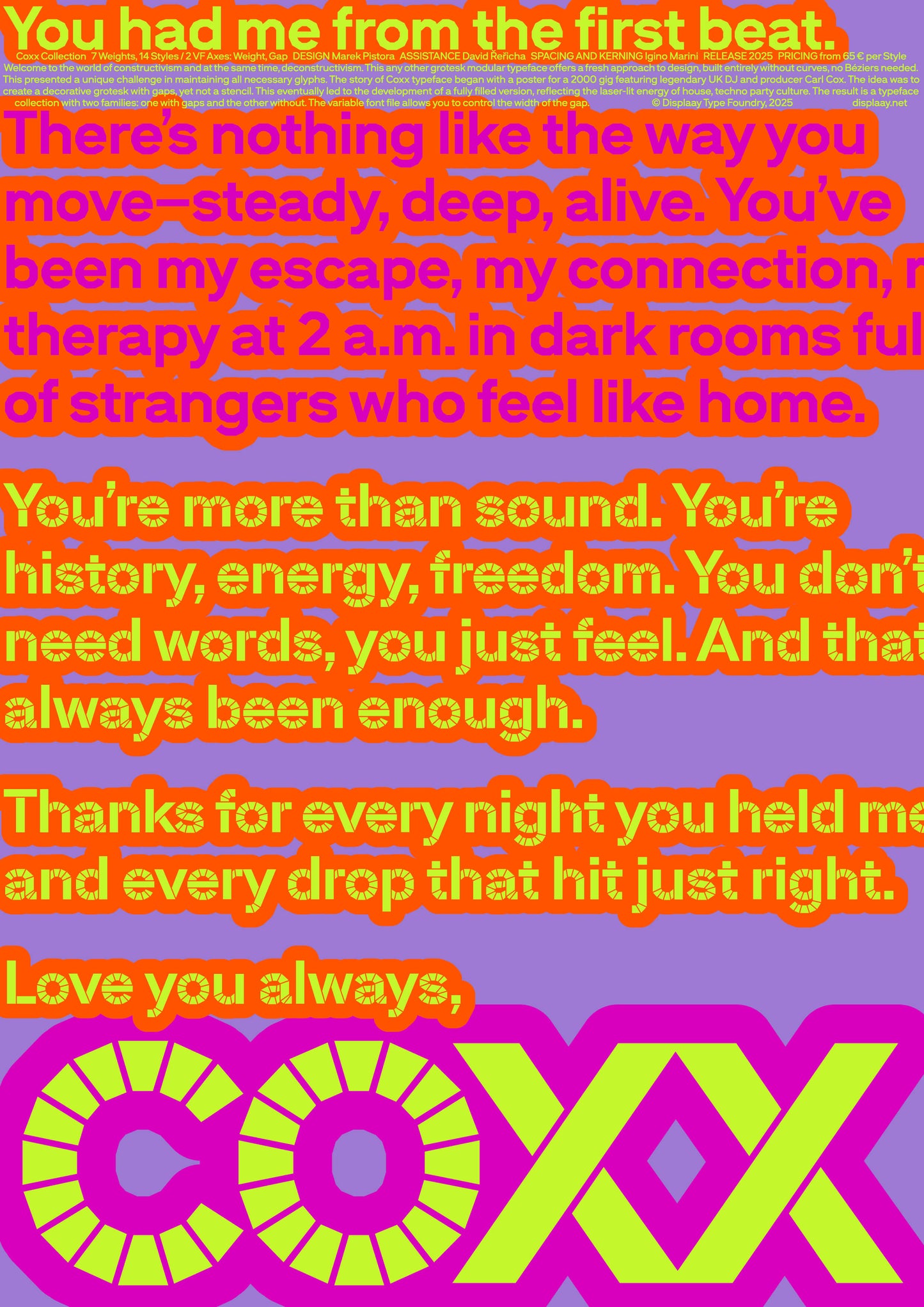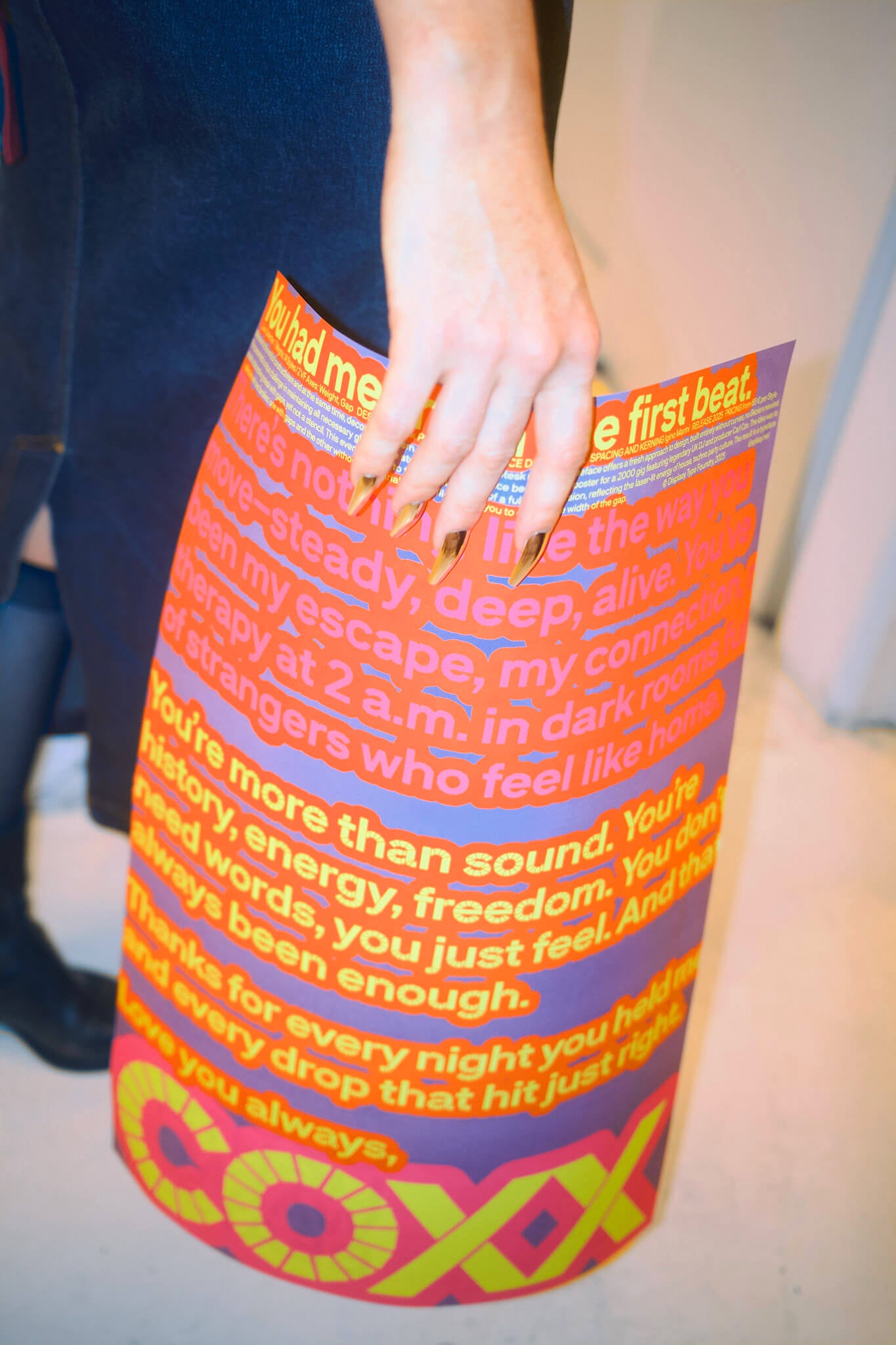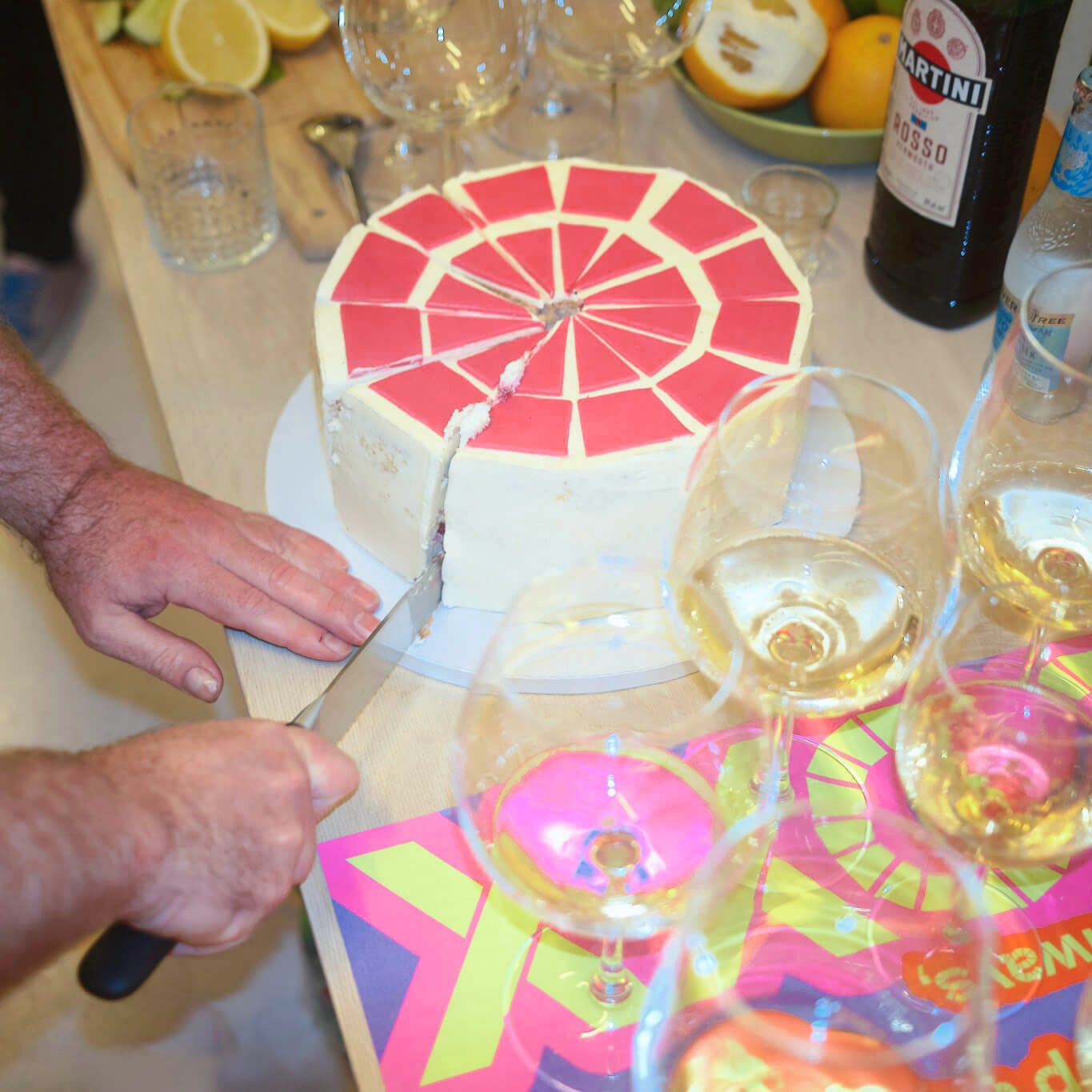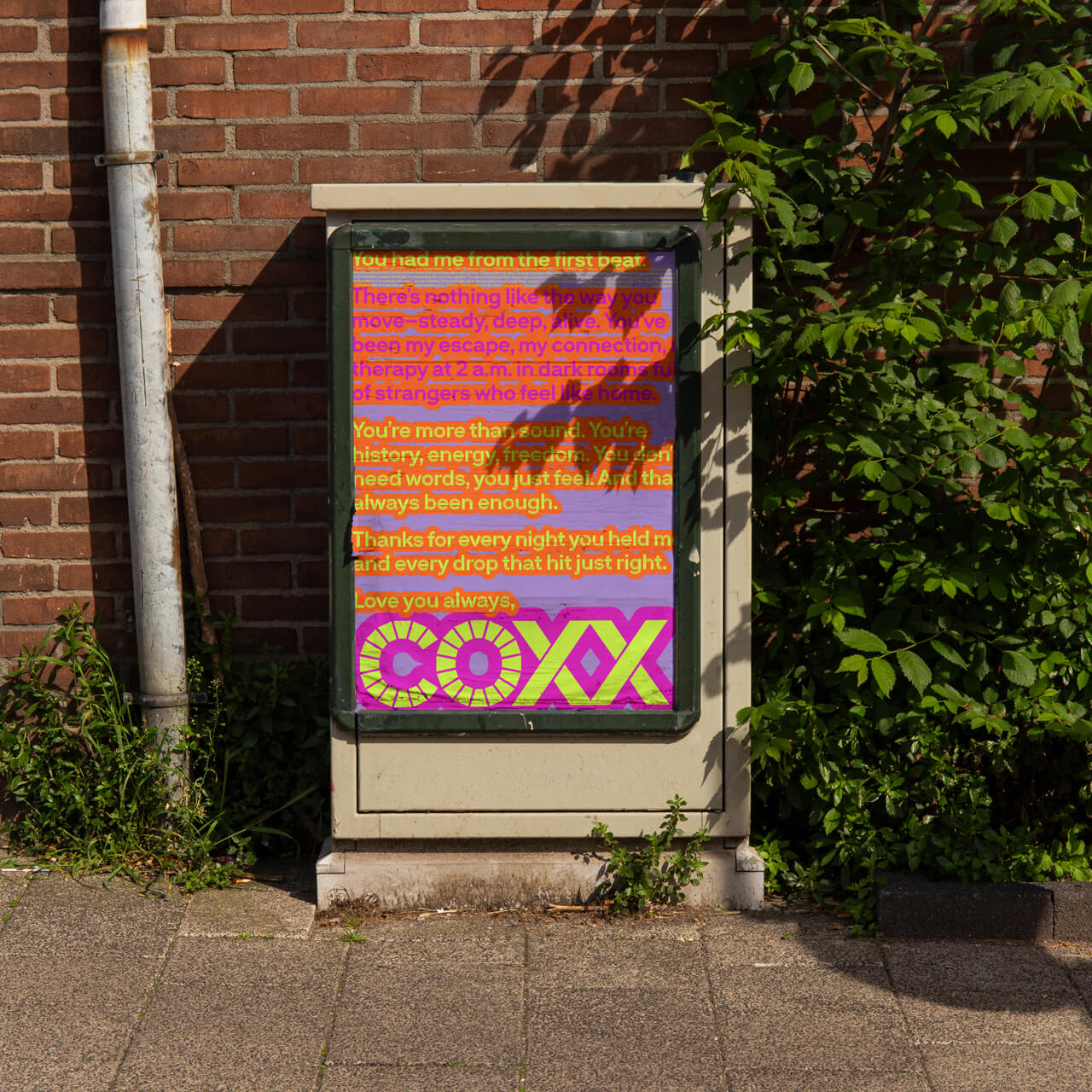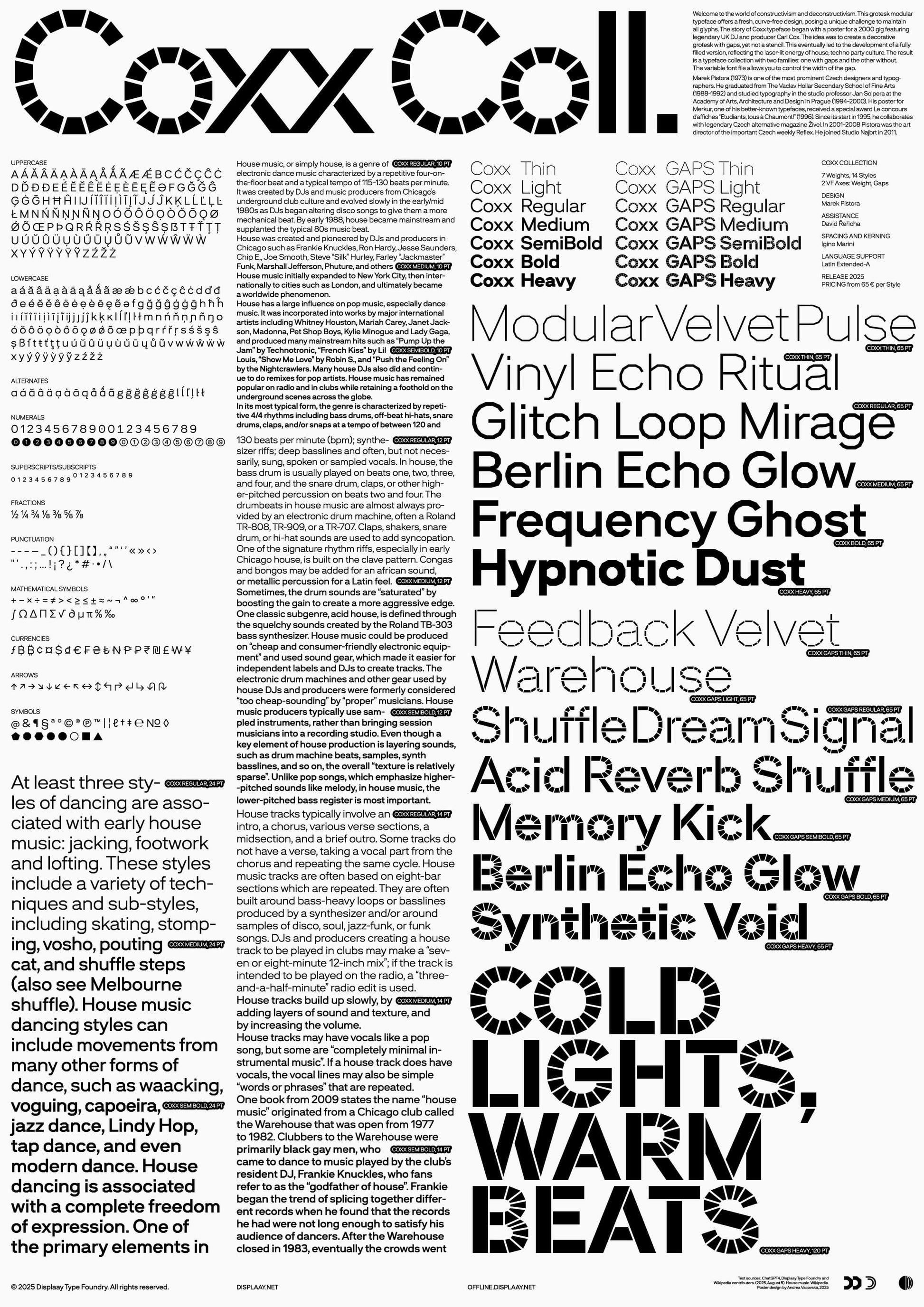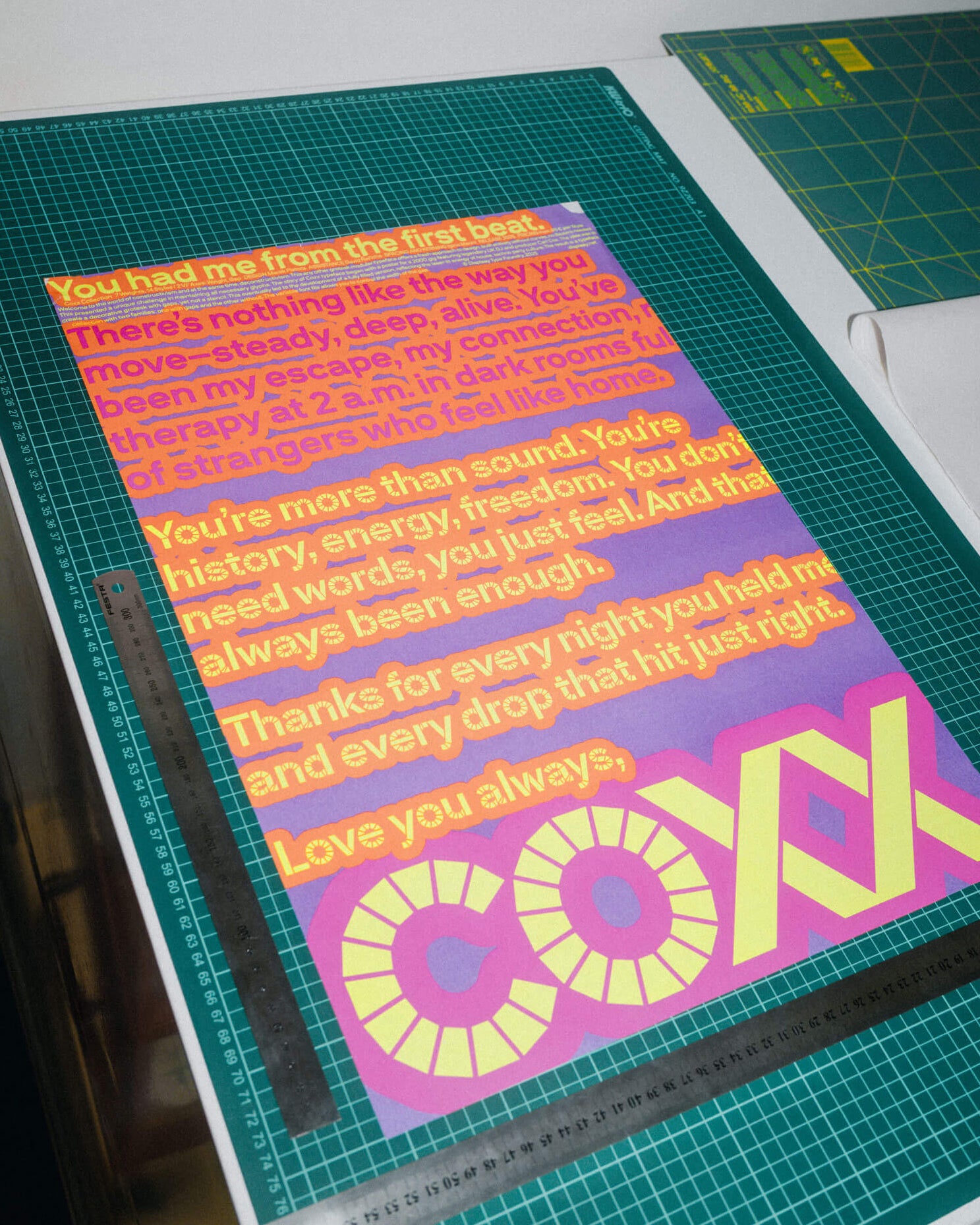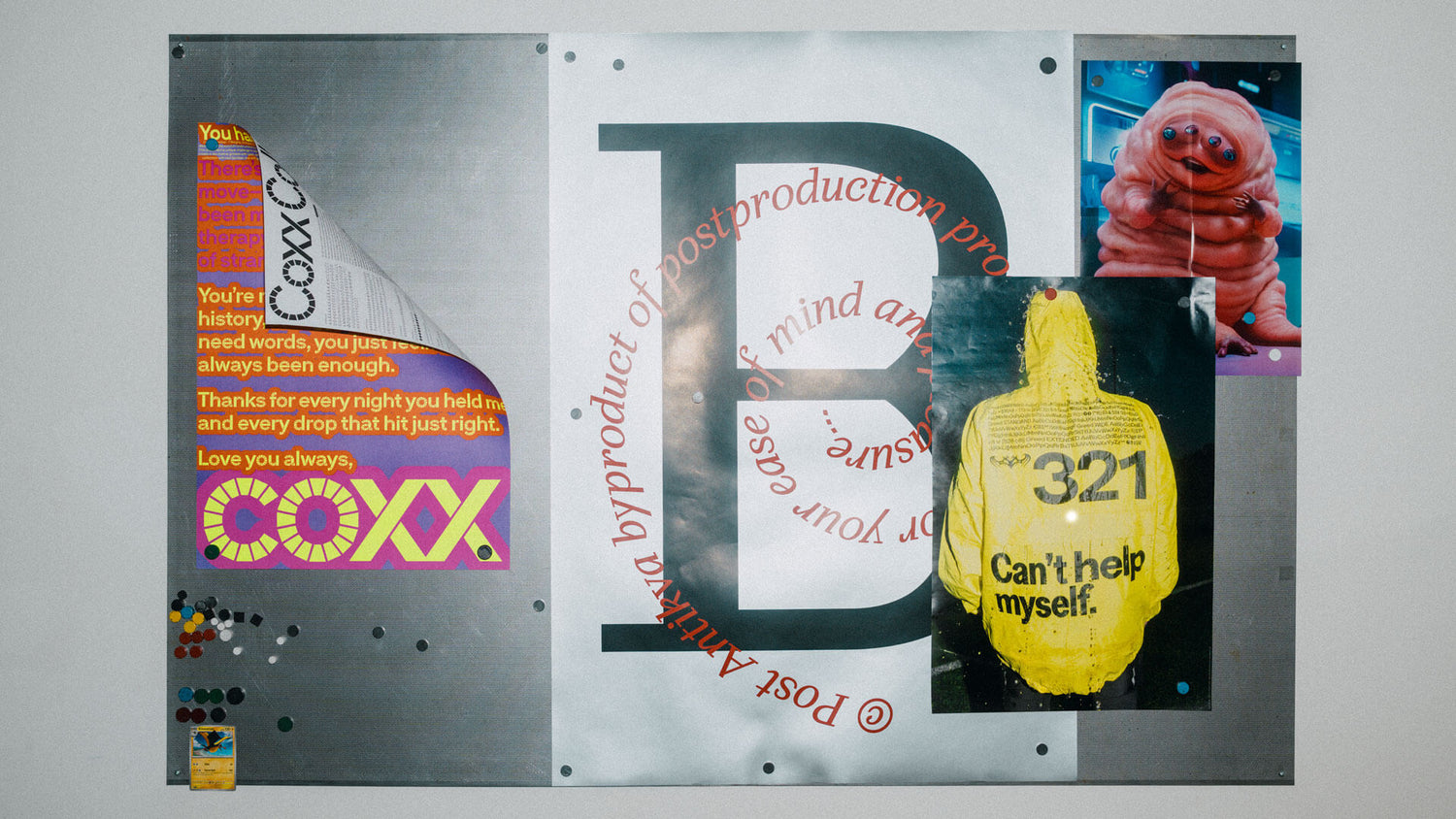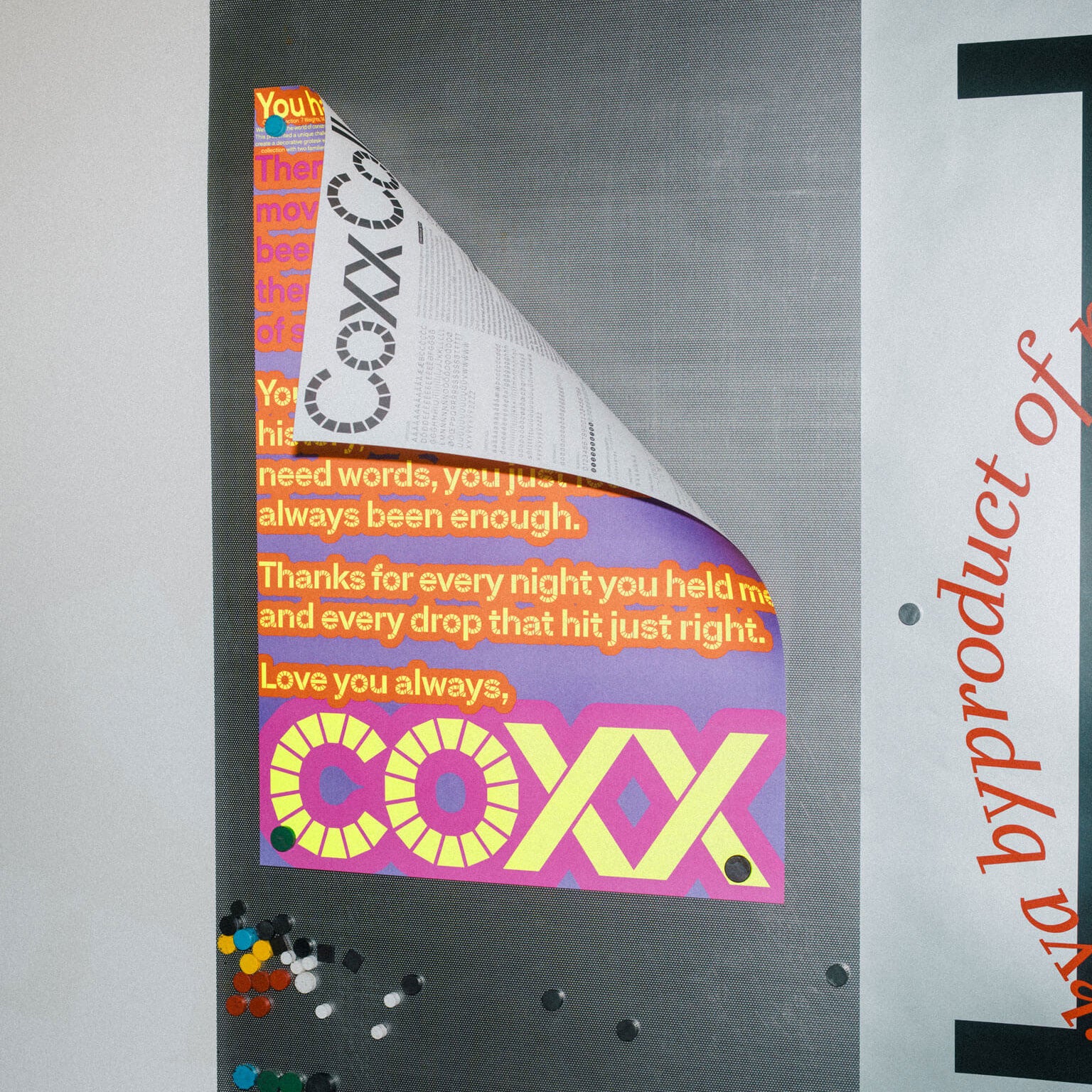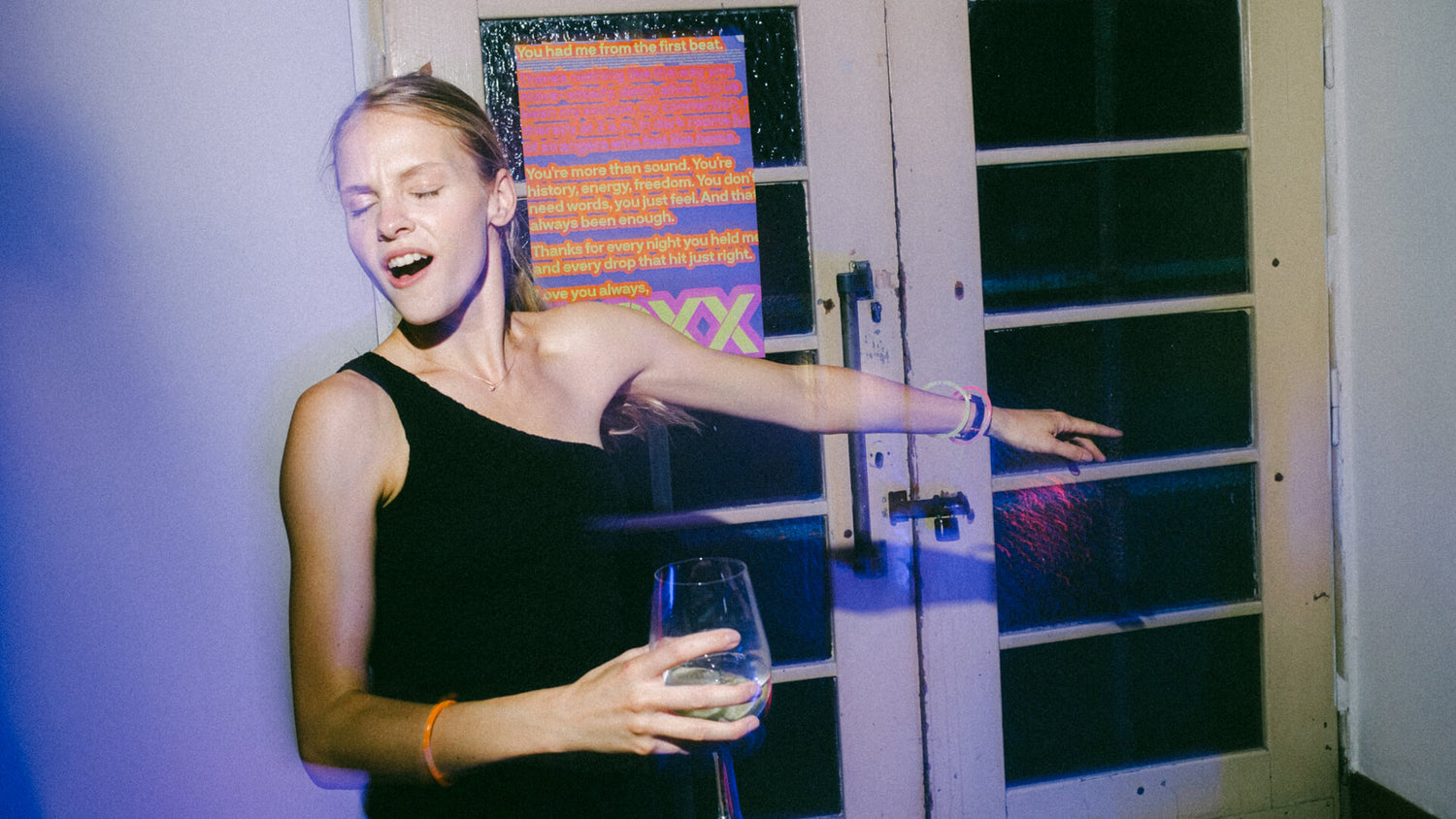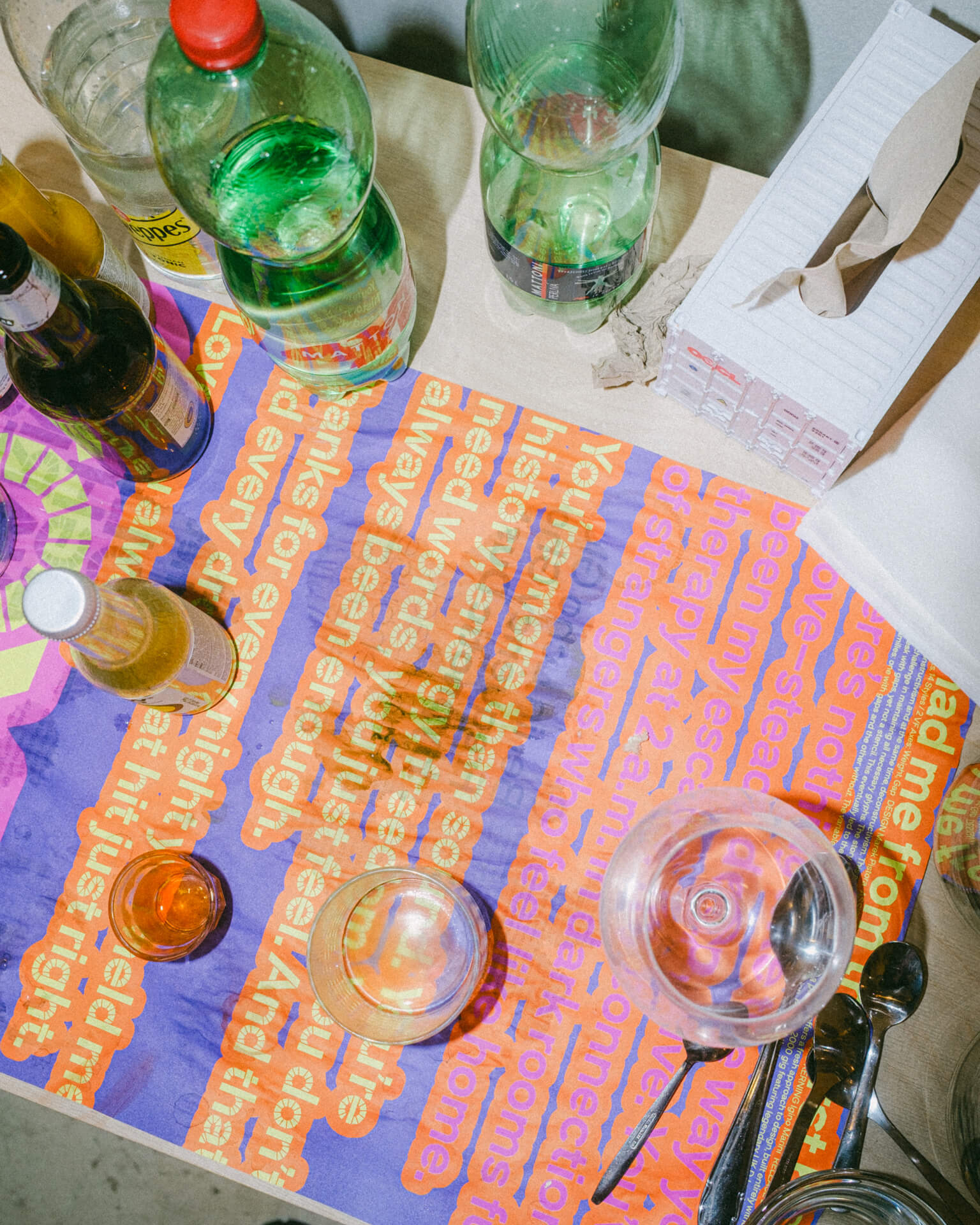
Coxx POSTER
As an homage to Carl Cox and Marek Pistora — a legendary Czech type designer and the author of the typeface — we’ve designed the Coxx POSTER. Heavily inspired by 2000s aesthetics, this one leans more into the realm of a classic specimen, with a showcase of the family on the reverse side. It comes in A2 format and is offset printed with four Pantone colours. Yummy!
Font in use: Coxx